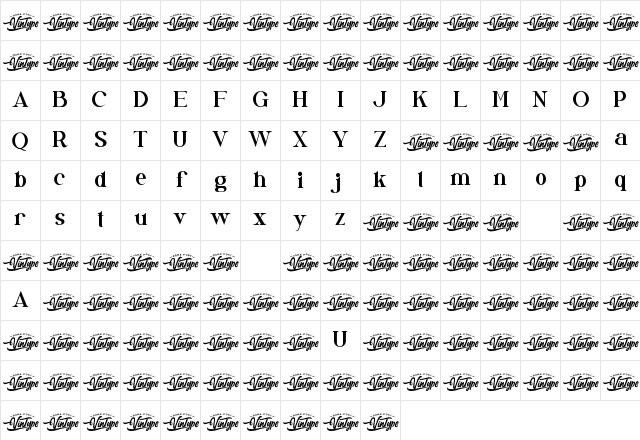
Florestica Demo Regular Free Font
Florestica Demo Regular
Foundry: VinType Studio
Designer: Widiyanti & Sarah SP
Design Context for Florestica Demo
Florestica Demo is a composed and adaptable typeface that performs quietly and consistently across a wide range of design contexts.